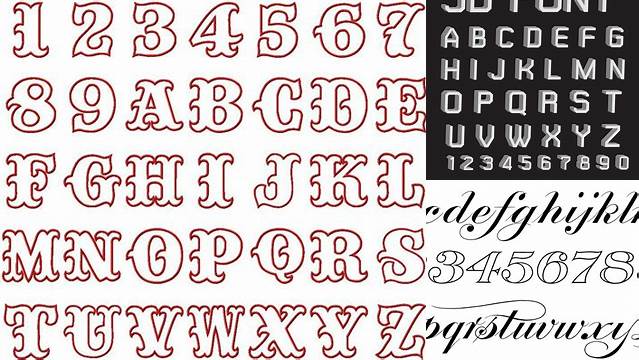
Cool Fonts: Enhance Your Design With Unique Letters & Numbers
Hey there, design enthusiasts! Are you ready to dive into the awesome world of cool fonts letters and numbers? Whether you're a seasoned graphic designer, a budding web developer, or just someone who loves to spice up their social media posts, choosing the right font can make all the difference. Forget boring old Arial – we're talking about fonts that pop, fonts that grab attention, and fonts that perfectly capture the vibe you're going for. In this article, we'll explore everything you need to know about cool fonts letters and numbers, from where to find them to how to use them effectively in your projects. So, buckle up, because we're about to embark on a typography adventure!
H2: Discovering the Magic of Stylish Fonts
Okay, let's get down to brass tacks. What exactly are cool fonts letters and numbers? Basically, these are typefaces that have a unique style, personality, and visual appeal. They're not your run-of-the-mill fonts; they're the ones that make your designs stand out from the crowd. Think of them as the secret sauce that elevates your creations from bland to brilliant. The beauty of these fonts lies in their diversity. You'll find them in every imaginable style, from sleek and modern sans-serifs to whimsical and playful scripts, and even edgy, industrial-inspired typefaces. The options are truly limitless! But the best part? They're not just about aesthetics. The right font can communicate a specific tone, evoke emotions, and even reinforce your brand identity. For example, if you're designing a logo for a children's toy company, you might opt for a fun, bubbly font. On the other hand, if you're creating a website for a high-tech startup, a clean, minimalist font would be more appropriate. The key is to choose fonts that align with your message and target audience. When selecting cool fonts letters and numbers, consider the overall feel of your project. Are you going for a classic, vintage vibe? A modern, futuristic look? Or something in between? The answer will guide you in your font selection process. Also, pay attention to readability. While a font might look stunning, it's useless if people can't easily read the text. Ensure that your chosen font is legible, especially for body text. Furthermore, think about the versatility of the font. Can it be used in various sizes and contexts? Does it have different weights and styles (e.g., bold, italic, condensed) to provide flexibility in your designs? Choosing fonts that meet all these criteria will help you create professional-looking and visually appealing projects. With cool fonts letters and numbers, the possibilities are endless, so don't be afraid to experiment and have fun!
H2: Top Websites to Find Amazing Fonts
H2: Using Fonts Effectively in Your Designs
So, you've found some awesome cool fonts letters and numbers – now what? The next step is knowing how to use them effectively in your designs. The goal is to choose fonts that complement each other, align with your brand, and enhance the overall message you're trying to convey. The first step is to understand font pairing. This involves selecting two or three fonts that work well together. For example, you might pair a classic serif font for headings with a clean sans-serif font for body text. Or, you might combine a bold display font with a more understated font for subheadings. There are several tools available online that offer font pairing suggestions. These tools can help you explore different combinations and find the perfect match for your project. Once you have your font pairings, consider the hierarchy of your design. Use different font sizes, weights, and styles to create a clear visual hierarchy. This helps guide the viewer's eye and ensures that the most important information stands out. For example, you might use a large, bold font for your main heading, a smaller font for your subheadings, and a regular font for the body text. Pay attention to the readability of your fonts. While a font might look great, it's important to ensure that the text is easy to read. Avoid using overly ornate or complex fonts for large blocks of text. Choose fonts that are legible, especially for body text. Experiment with different font sizes and spacing to optimize readability. This will help you create designs that are not only visually appealing but also easy to understand. Finally, think about the overall style of your design and the message you're trying to convey. Do your chosen fonts match your brand and the tone of your message? Remember that fonts can evoke different emotions and create different impressions. For example, a playful font can be perfect for a children's brand, while a more sophisticated font can be suitable for a corporate website. When you utilize these best practices for using cool fonts letters and numbers, you'll create designs that are effective and visually appealing.
H3: Font Pairing: Finding the Perfect Match
One of the most crucial aspects of using cool fonts letters and numbers effectively is font pairing. The art of pairing fonts involves selecting two or more typefaces that work harmoniously together to create a visually appealing and readable design. Pairing fonts isn't just about finding fonts you like; it's about finding fonts that complement each other. There are a few things to keep in mind when pairing fonts. First, consider the relationship between the fonts. You can pair fonts that are similar in style or fonts that provide contrast. For example, you might pair a classic serif font with a more modern sans-serif font. Or, you might combine a bold display font with a more understated font for body text. A great way to start is to establish a hierarchy for your design. This means deciding which elements are most important and using different font styles to draw attention to them. You might use a bold, eye-catching font for your headings and a more subdued font for your body text. When pairing fonts, make sure to consider the readability of the fonts. Avoid using fonts that are too similar or too different, as they can be difficult to read. Choose fonts that are easily distinguishable and that complement each other. The goal is to strike a balance between visual interest and ease of reading. In addition, keep the purpose of your design in mind. The fonts you choose should reflect the tone and message of your design. For instance, if you're designing a website for a children's brand, you might use a playful font for your headings and a more readable font for your body text. When searching for font pairings, explore different websites and resources that provide pairing suggestions. Many websites, such as Google Fonts, offer pre-made pairings. You can also use font pairing tools to experiment with different combinations. By experimenting and studying the principles of font pairing, you can create designs that are visually appealing and make your work more effective. The right cool fonts letters and numbers will take you a long way.
H3: Creating Visual Hierarchy With Fonts
When it comes to working with cool fonts letters and numbers, establishing a clear visual hierarchy is essential for creating effective and engaging designs. Visual hierarchy refers to the arrangement of design elements in a way that guides the viewer's eye and communicates the relative importance of each element. In simpler terms, it's how you organize the content of your design so that the reader understands what to focus on. Using typography effectively is key to establishing visual hierarchy. You can achieve this by manipulating different font attributes to emphasize the importance of specific text elements. For instance, the size of the text plays a crucial role. Larger fonts typically draw the eye and indicate importance, making them ideal for headings and titles. Smaller fonts are best for body text, making it easy for readers to digest long pieces of content. Weight is another important attribute. Bold fonts tend to stand out and capture the viewer's attention, making them great for highlighting key information. On the other hand, light fonts are best for subheadings and body text. Additionally, you can use different font styles, such as italic or underlined text, to add emphasis. However, use these styles sparingly, as too much emphasis can be distracting. The color of the text is also a critical element. Use contrasting colors to differentiate between different text elements. For example, you can use a bright color for your headings and a more subdued color for your body text. Another key aspect of visual hierarchy is the arrangement of text elements. Use white space effectively to create visual separation between different elements. This helps the reader easily identify the different parts of your design. By leveraging all of these aspects, you can effectively direct the reader's focus and improve the overall visual communication of your design. In essence, by strategically using cool fonts letters and numbers, you can create designs that are both visually appealing and easy to navigate.
H2: Fonts for Different Design Projects
Let's get specific! The world of cool fonts letters and numbers is vast, and the best font for your project depends entirely on what you're trying to achieve. So, let's explore some popular project categories and the types of fonts that work well for each. For websites, readability is key. You want a font that's clean, easy to read, and looks good across different devices. Sans-serif fonts like Open Sans, Roboto, and Lato are popular choices for body text because they're clear and modern. For headings, you can experiment with bolder fonts or those with a bit more personality, but always prioritize legibility. When it comes to logos, the font choice is crucial as it embodies the brand's identity. Your logo font should be unique, memorable, and reflect the brand's values. Display fonts are great for logos as they offer bold personality, but you also need to make sure they are easy to read and scalable. Consider using a custom font or a font that complements your brand's style. For print materials, such as posters, flyers, and brochures, you can be a bit more creative. However, consider the context of the design and the audience. Think about the overall message you want to convey, and choose fonts that will help you achieve that. Bold, eye-catching fonts can be great for headlines, while clean, legible fonts are best for body text. For social media, the possibilities are endless! The key is to choose fonts that are attention-grabbing and visually appealing. Display fonts and script fonts are great for social media graphics as they are trendy and have a strong visual presence. Also, make sure that the font you choose is suitable for the platform you're using. Instagram and Pinterest, for instance, are very visual platforms, so you'll need to choose fonts that will stand out. Ultimately, the best font for your project will depend on the specific requirements and the message you're trying to convey. By understanding the different font styles and the unique needs of each design project, you can choose fonts that create a cohesive and effective design.
H3: Web Design: Prioritizing Readability and User Experience
Web design is a unique field when it comes to utilizing cool fonts letters and numbers. Readability and user experience take center stage. The font you choose can make or break your website. For web design, the primary goal is to make sure your website is easy to read and navigate. The first thing to consider is the font's legibility. Ensure that the font is easily readable on all devices, regardless of screen size or resolution. The best fonts for web design are generally sans-serif fonts because they render well on screens and are easy to read. Open Sans, Roboto, and Lato are all popular choices. These fonts are designed with web use in mind, so they're optimized for legibility. Beyond the font itself, you should carefully consider the font size, line height, and letter spacing. These elements affect readability. Use a larger font size for body text, and ensure that the line height is sufficient to prevent the text from appearing cramped. Also, pay attention to contrast. Make sure there's enough contrast between the text color and the background color, so that the text is easy to see. For example, black text on a white background typically offers the best contrast. Another important factor to consider is the font's weight. Use bold fonts for headings to make them stand out from the rest of the content. Also, use italicized text to emphasize a certain point, but avoid using it excessively. Keep in mind the overall design of your website. Your font choices should complement your website's design and its brand. If your brand is sleek and modern, you might want to choose a clean, minimalist font. Always test your website on different devices and browsers to make sure that your fonts are rendering correctly. Ultimately, the use of cool fonts letters and numbers in web design hinges on striking a balance between aesthetics and functionality.
H3: Logo Design: Fonts That Define Your Brand
Choosing the right font is critical when designing a logo. The font is a visual representation of your brand, and it's one of the first things people will see when they encounter your business. Therefore, it must accurately convey your brand's values, personality, and overall message. The font you choose should be memorable, unique, and easy to read. Before selecting a font, think about your brand's target audience and the industry it operates in. For example, if you're designing a logo for a children's toy company, you might consider a playful font that's fun and approachable. On the other hand, if you're designing a logo for a law firm, you might opt for a more professional and trustworthy font. Then, you need to analyze the characteristics of different font styles. Serif fonts, such as Times New Roman and Garamond, are often associated with tradition, sophistication, and trust. Sans-serif fonts, such as Arial and Helvetica, tend to convey a modern, clean, and minimalist feel. Display fonts are often used for their personality and bold visual statements. Make sure that the font you choose complements your logo's other design elements, such as colors, images, and overall layout. The font should work in harmony with other elements to create a cohesive and visually appealing logo. Also, consider the scalability of the font. Your logo will likely be used in various sizes, from small icons to large banners. Make sure your font is legible at all sizes, so your brand's identity is visible. It is often a great idea to consult with a professional graphic designer to guide you through the font selection process. A designer can help you choose a font that aligns with your brand's values and target audience. If your goal is to create an outstanding logo, mastering the art of using cool fonts letters and numbers is essential.
H2: Finding Inspiration and Staying Updated
So, where do you go to find inspiration for cool fonts letters and numbers? The design world is constantly evolving, and it's essential to stay up-to-date with the latest trends and styles. Fortunately, there are tons of resources that can help you stay inspired and informed. Design blogs and websites are a great starting point. Websites like Behance and Dribbble are excellent resources for seeing what other designers are creating. These platforms allow you to explore projects, discover new trends, and get inspired by creative designs from around the world. Also, look for design-focused publications like Communication Arts and HOW Design. These publications offer articles, interviews, and case studies, providing insights into the latest design trends, typography, and industry insights. Another great source of inspiration is font foundries. These are companies that specialize in designing and selling fonts. They often showcase their latest releases, provide examples of font usage, and offer insights into font design. Keep an eye on sites like MyFonts and FontShop. You can also find inspiration in everyday life. Pay attention to the fonts you see in books, magazines, advertising, and street signs. Observe how different fonts are used and consider what makes them effective. Also, follow designers and typography experts on social media. Platforms like Instagram and Twitter are full of creative inspiration. By following these experts, you'll stay up-to-date with the latest trends and discover new fonts. Remember that the design world is constantly evolving, so it's important to stay curious and keep exploring. There are several sources, including blogs, publications, social media, and everyday observation, to discover the world of cool fonts letters and numbers.
H3: Design Blogs and Websites: A Source of Creativity
Design blogs and websites are a great way to stay informed about the latest trends and find inspiration for cool fonts letters and numbers. These platforms offer a wealth of information, including typography news, font recommendations, design showcases, and tutorials. One of the best ways to stay inspired is to follow well-established design blogs. These blogs often feature articles and interviews with leading designers, providing insights into their creative processes and the trends shaping the design world. Also, you can discover new fonts and explore their usage in real-world designs. For instance, websites like Behance and Dribbble are excellent resources for browsing design projects and gaining inspiration from other creators. You can see how different designers are using fonts to create stunning visuals. Many design blogs and websites feature tutorials, guides, and reviews that help you learn new design skills. Whether you want to learn how to pair fonts or how to create unique typography effects, these resources are valuable. Another way to stay informed is to follow design publications and news websites. These publications provide in-depth articles about the latest trends, font releases, and design innovations. Look for websites, such as Communication Arts and HOW Design, to keep abreast of the trends. Also, many design websites include sections dedicated to typography, which provide detailed information about font selection, font pairing, and typographic design principles. Reading these sections can help you improve your font knowledge and make better design decisions. Following design blogs and websites is essential for any designer. They can help you stay inspired, learn new skills, and discover the world of cool fonts letters and numbers.
H3: Social Media: Your Daily Dose of Typography
Social media platforms are a great way to discover and engage with the world of typography and cool fonts letters and numbers. Instagram, in particular, is a visual playground that allows you to follow designers, see examples of font usage, and discover creative design projects. Instagram is an excellent resource for finding inspiration. You can follow typography-focused accounts, graphic designers, and design studios to see their work and learn about new trends. You can browse through endless visuals that show how fonts are being used in real-world designs, from logos and websites to posters and social media graphics. Another important social media platform for design inspiration is Pinterest. Pinterest is ideal for creating mood boards and organizing ideas for your future projects. You can search for fonts, font pairings, and design layouts to help you visualize your design ideas. Pinterest allows you to save images and organize them into collections, making it easy to come back to your favorite ideas later. Social media can also be a great place to learn about new fonts. Many font foundries and designers use social media to promote their latest releases and share examples of font usage. You can discover new typefaces, learn about their unique features, and get inspired by the creativity of designers. Following hashtags such as #typography, #font, #graphicdesign, and #logodesign can help you discover new designs, designers, and design trends. Engaging with designers and typography enthusiasts on social media is a great way to connect with the design community. You can ask questions, share your work, and get feedback on your design ideas. With the right strategies, you can stay informed about the latest trends and become better at working with cool fonts letters and numbers.
H2: Licensing and Legal Considerations
When working with cool fonts letters and numbers, it's essential to understand the legal aspects of font usage. Fonts are considered copyrighted software, and using them without the proper license can lead to legal issues. Each font has a specific license that dictates how it can be used. Font licenses typically cover the usage, distribution, and modification of the font. Always make sure you carefully read and understand the terms of the font license before using a font in your projects. There are several types of font licenses, each with its own set of rules. A personal-use license typically allows you to use a font for non-commercial projects, such as personal projects or school assignments. A commercial license is required for using a font in projects that generate revenue or are used for business purposes. These licenses can vary in terms, so review them carefully. Some font licenses allow you to use the font on a specific number of websites or with a limited number of users. In addition to reading the license agreement, consider where you obtained the font. If you downloaded the font from a free font website, it's even more important to check the license terms. Font websites often offer a variety of fonts under different licenses. Also, if you create a design using a font, you typically own the copyright to the design, but not the font itself. You are granted the right to use the font within your design. Be mindful of font modifications. Some licenses may restrict the modification of the font files. Always make sure you have the legal rights to modify a font before making any changes. If you are unsure about the terms of a font license, it's always a good idea to consult with an attorney. They can review the license and provide guidance on how to use the font legally. Also, be prepared to provide proof of your font license, if necessary. Many font foundries provide a license certificate that you can keep for your records. Also, the key is to carefully assess the terms of a font license and understand the legal guidelines associated with working with cool fonts letters and numbers.
H3: Understanding Font Licenses: Personal vs. Commercial Use
One of the most important aspects of working with cool fonts letters and numbers is understanding font licenses, particularly the distinction between personal and commercial use. Font licenses are legal agreements that govern the usage rights of a typeface. These licenses specify how the font can be used, distributed, and modified. The first thing to consider is the difference between personal and commercial use. Personal use typically refers to projects that are for your own enjoyment and are not intended to generate revenue or benefit a business. This includes projects like personal invitations, school assignments, or personal websites. Commercial use, on the other hand, refers to projects that are used for business purposes or that generate revenue. This includes websites, logos, marketing materials, and any design that is used to promote a product or service. The font license will specify whether you can use the font for personal or commercial purposes. Some fonts are available under both personal and commercial licenses. This means you can use the font for both personal and commercial projects, but there will be different licensing terms for each. Other fonts are only available under a personal use license. In such cases, you can only use the font for personal projects. Always check the font license to determine whether it is suitable for your project. When you plan to use a font for commercial purposes, you will typically need a commercial license. Commercial licenses often come at a cost, and the price can vary depending on the font foundry and the specific terms of the license. Consider whether you need a commercial license. If you're unsure whether your project qualifies as commercial use, it is best to seek clarification from the font foundry. For instance, if you use a font for a client project, you'll need a commercial license. Understanding the differences between personal and commercial use is essential for using fonts legally and ethically. Always read the font license before using the font for any project. This includes the usage rights, distribution rights, and modification rights. This is important to ensure that you are using the font in compliance with the license terms and avoid any legal issues down the road. By understanding and carefully considering the licensing aspects of cool fonts letters and numbers, you can build and create beautiful designs, avoiding legal problems.
H3: Avoiding Copyright Infringement: Legal Best Practices
To navigate the world of cool fonts letters and numbers successfully and avoid legal issues, it's crucial to adopt some legal best practices regarding copyright. Copyright infringement occurs when you use a font in a way that violates the terms of its license. This can lead to legal penalties, so it's important to understand the rules and follow them carefully. The first best practice is to always obtain the appropriate font license. As mentioned earlier, different licenses apply to personal and commercial projects. Ensure that you purchase the correct license for your intended use. Always read the license agreement carefully. Understand what is permitted and what is restricted. Pay close attention to the usage, distribution, and modification rights. Some licenses may restrict the number of websites you can use the font on or the number of users who can access it. Another best practice is to respect the font designer's rights. Font designers are the copyright holders of their work. Do not modify the font files, unless the license explicitly permits it. Moreover, do not redistribute or share the font files with others, unless the license gives you permission to do so. If you are unsure about any terms of the font license, it's always best to err on the side of caution and seek clarification from the font foundry or the legal counsel. Save all of your font licenses and related documentation. In case of any disputes, you'll have the necessary documentation to support your legal compliance. When using a font in a design that you are selling or distributing, you must ensure that your clients also understand and respect the license terms. Explain the limitations of the font's usage. This will help avoid any misunderstanding that might arise regarding their project's usage of the font. When choosing a font, consider the reputation of the font foundry. Reputable foundries are committed to protecting their intellectual property and providing clear licensing terms. They can provide you with more security, which helps prevent potential legal problems. Also, consider using only fonts that are licensed for your intended use. Some fonts may be free, but they may only be licensed for personal use. If you're unsure, seek the advice of an attorney or a legal professional. They can review your font licenses and provide expert legal guidance. Following these legal best practices is essential for respecting copyright laws and building a creative environment that is free from legal risks. By showing respect for cool fonts letters and numbers and the designers who created them, you can avoid copyright infringement and protect your business from legal trouble.
H2: Conclusion: Unleash Your Typography Creativity
So, there you have it! A comprehensive guide to the world of cool fonts letters and numbers. We've covered everything from the basics of typography to where to find amazing fonts, how to use them effectively, and the legal considerations you need to keep in mind. With the knowledge and inspiration you've gained, you're now ready to unleash your typography creativity and create stunning designs. Remember, the key is to experiment, explore, and never be afraid to try new things. Don't limit yourself to a few fonts; keep searching for new ones. The design world is constantly evolving, and so are the fonts available. Keep exploring websites like Google Fonts and DaFont to stay up-to-date with the latest trends. There are also websites like Behance and Dribbble, which can provide you with inspiration for cool fonts letters and numbers. Typography is an art, and choosing the right fonts can elevate your designs from boring to amazing. So go out there, have fun, and start creating! Your next design masterpiece is just a font away.